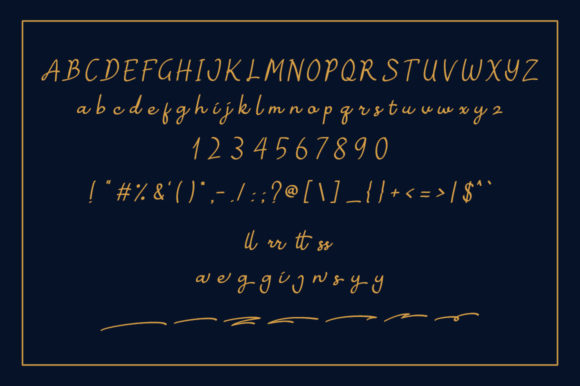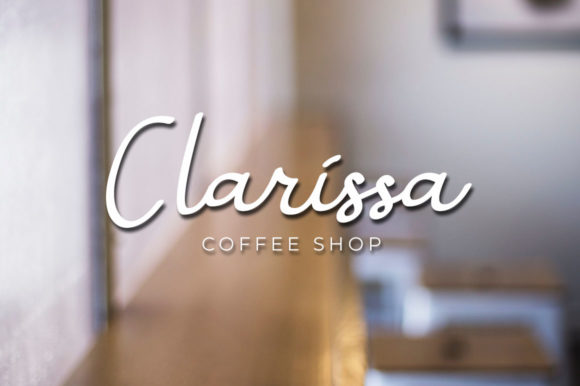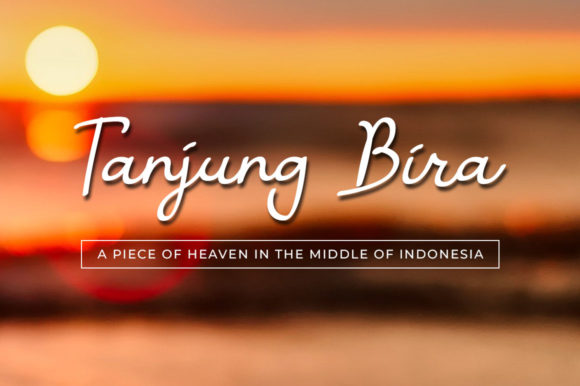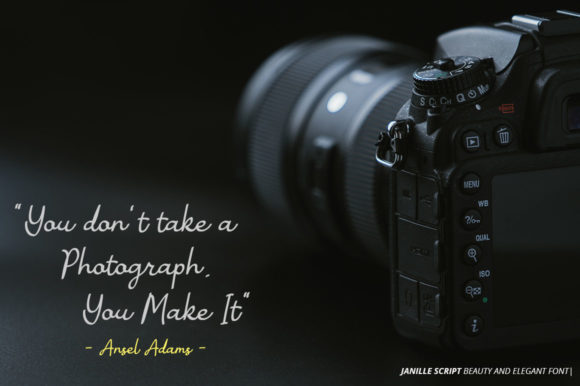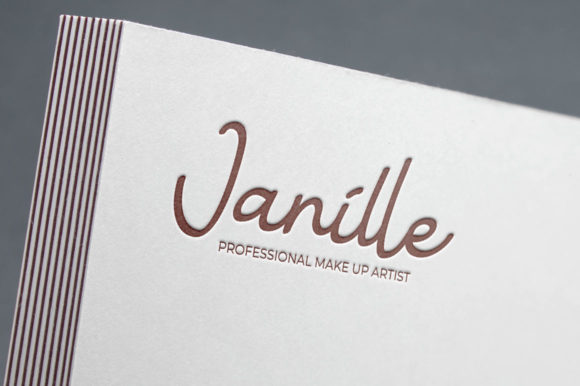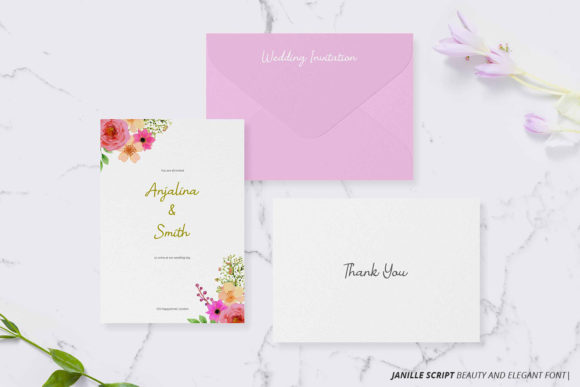
Introduction to Janille Font
Remember the moment when you’re brainstorming ideas for a creative project, and you stumble upon the perfect font to bring your concept to life? For designers, finding that elusive font can be a game-changer. It’s like discovering a hidden treasure that elevates your entire design and leaves a lasting impression on your audience.
One such treasure is the Janille Font, a stunning script font that exudes elegance and sophistication. Its beautiful, handwritten style is perfect for logos, wedding invitations, birthday cards, quotes, headlines, posters, and every other design that demands a high-quality, eye-catching typeface.
Key Features of Janille Font
- Unique, elegant script font featuring a transparent background, perfect for overlaying on images.
- Designed with a high level of detail, making it suitable for use in creative projects, such as invitations, logos, and more.
- Designed to be highly legible, making it easy to read and use in a variety of contexts.
- Perfect for designers looking for a unique and high-quality font to add a touch of elegance to their creative project.
Honest Review: Janille Font
As a designer, I’m always on the lookout for high-quality design resources to elevate my creative projects. Recently, I had the chance to explore the Janille Font, and I’m excited to share my honest review.
- ✨ Beautiful, elegant script font perfect for titles and headings
- ✨ Clear and legible even at small font sizes
- ✨ Comes with a transparent background option, making it easy to customize
- ⚠️ Limited language support, which may be a concern for designers working with non-English clients
- ⚠️ Not as versatile as some other script fonts, may not be suitable for all design styles
Overall, I’m impressed with the Janille Font. Its elegant design and high-quality execution make it a great choice for designers working on creative projects that require a touch of sophistication. While it may have some limitations, it’s a valuable addition to any design resource library, especially considering it’s available for free download.
Tips for Getting the Most Out of Janille Font
Use Janille Font with a transparent background to create a stylish and modern design. Experiment with different font sizes and styles to add depth and visual interest to your creative project.
Janille Font is ideal for use in logos, brochures, business cards, and other marketing materials. It’s also great for use in social media posts, blog titles, and other online content.